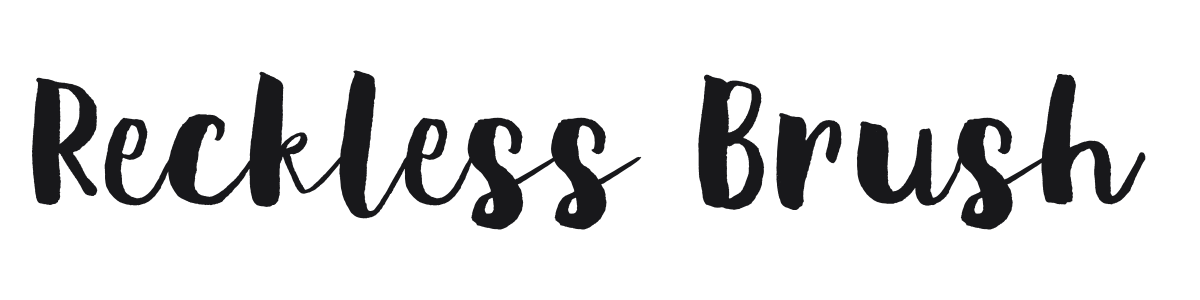
Reckless Brush
by The Trending Fonts
Reckless Brush is a casual, ink-heavy brush script with bold downstrokes and delicate hairline connections between letters. The writing feels genuinely hand-done, with the kind of loose energy that comes from a wide brush moving fast across paper. It works best at large sizes where the stroke variation and texture can breathe.